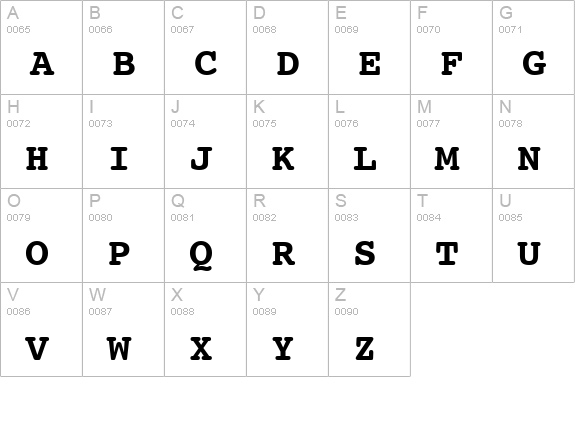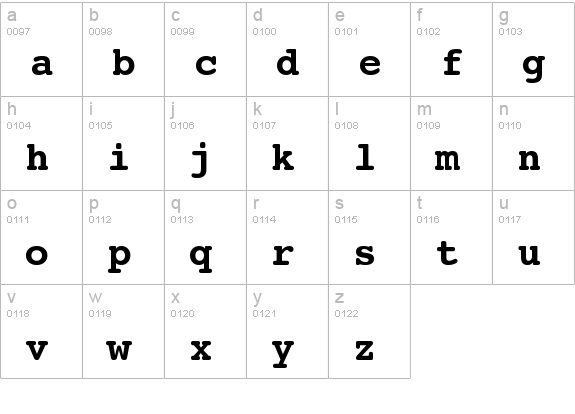
Courier Bold SWA Font Details
Courier Bold SWA is a strong, high-contrast variant in the Courier typeface family \xE2\x80\x94 well suited to headlines, attention-grabbing titles, and strong calls-to-action.
Courier Bold SWA is a modern and versatile font that exudes confidence and professionalism. With its bold and striking appearance, this font is perfect for making a statement in your designs. Whether you are creating a bold headline or emphasizing important information, Courier Bold SWA will make sure your message stands out. The clean lines and distinct letter shapes of Courier Bold SWA make it easy to read, ensuring that your text is both visually appealing and easily comprehensible. This font is suitable for a wide range of design projects, from branding and advertising to editorial layouts and more. Best of all, Courier Bold SWA is available for free download at FontsMarket.com. Now you can add this stylish and impactful font to your collection without any cost. Don't miss out on the opportunity to enhance your designs with the timeless appeal of Courier Bold SWA.